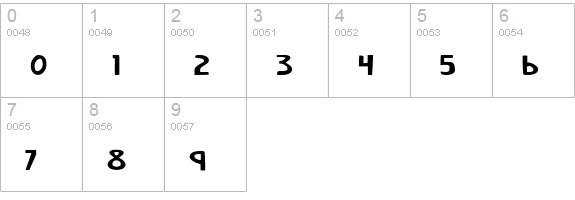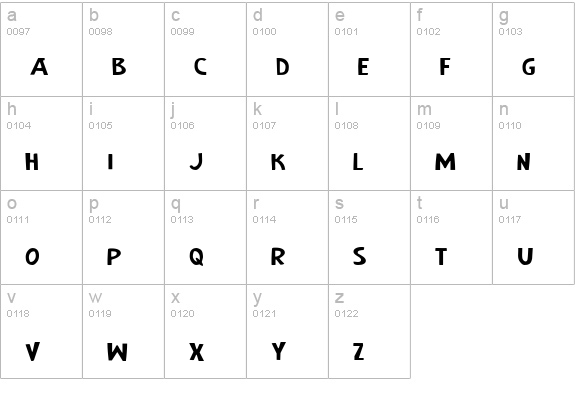
Earth's Mightiest Expanded is a distinctive, extended-width variant in the Earth's typeface family \xE2\x80\x94 well suited to design and typography projects.
Earth's Mightiest Expanded font is a powerful and bold typeface that commands attention with its strong and sturdy letterforms. Designed for maximum impact, this font is perfect for headlines, posters, and any design project that needs to make a statement. The extended width of the characters gives it an imposing presence on the page, while the clean lines and sharp edges provide a modern and sleek look. What sets Earth's Mightiest Expanded font apart is not just its impressive design, but also the fact that it is available for free! That's right, you can download this striking font at FontsMarket.com without having to spend a penny. Whether you're a seasoned designer looking to add a new tool to your arsenal or a beginner looking to make a big impact with your designs, Earth's Mightiest Expanded font is a must-have addition to your font collection. Download it today and unleash the power of this mighty typeface in your next project.